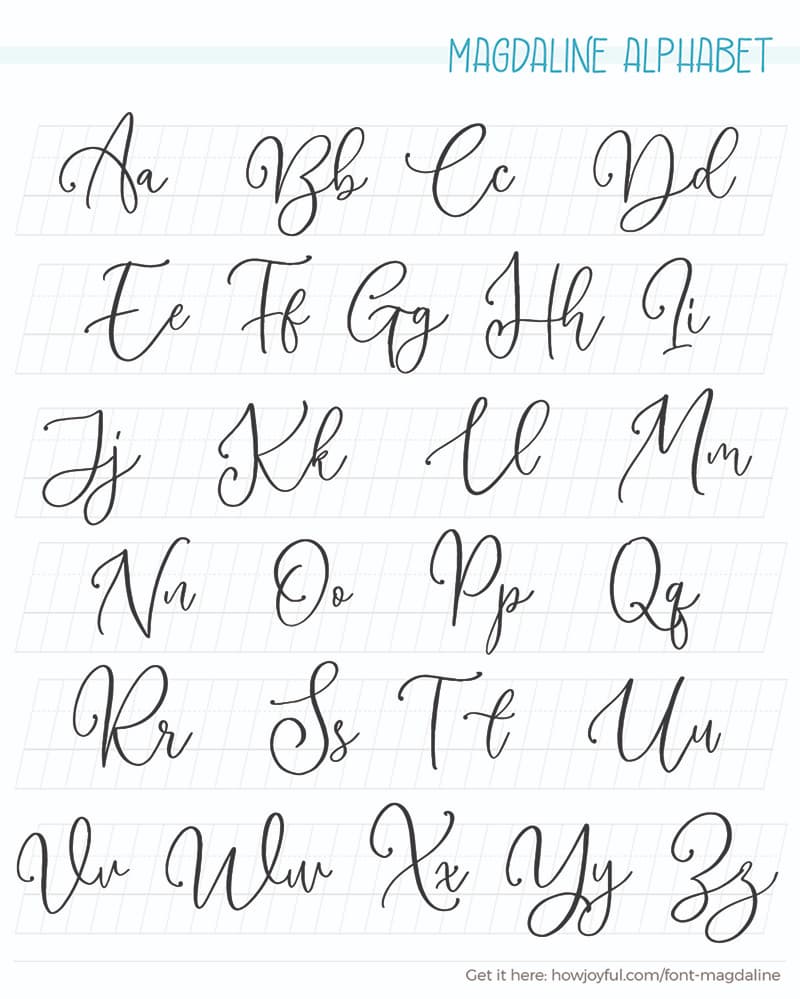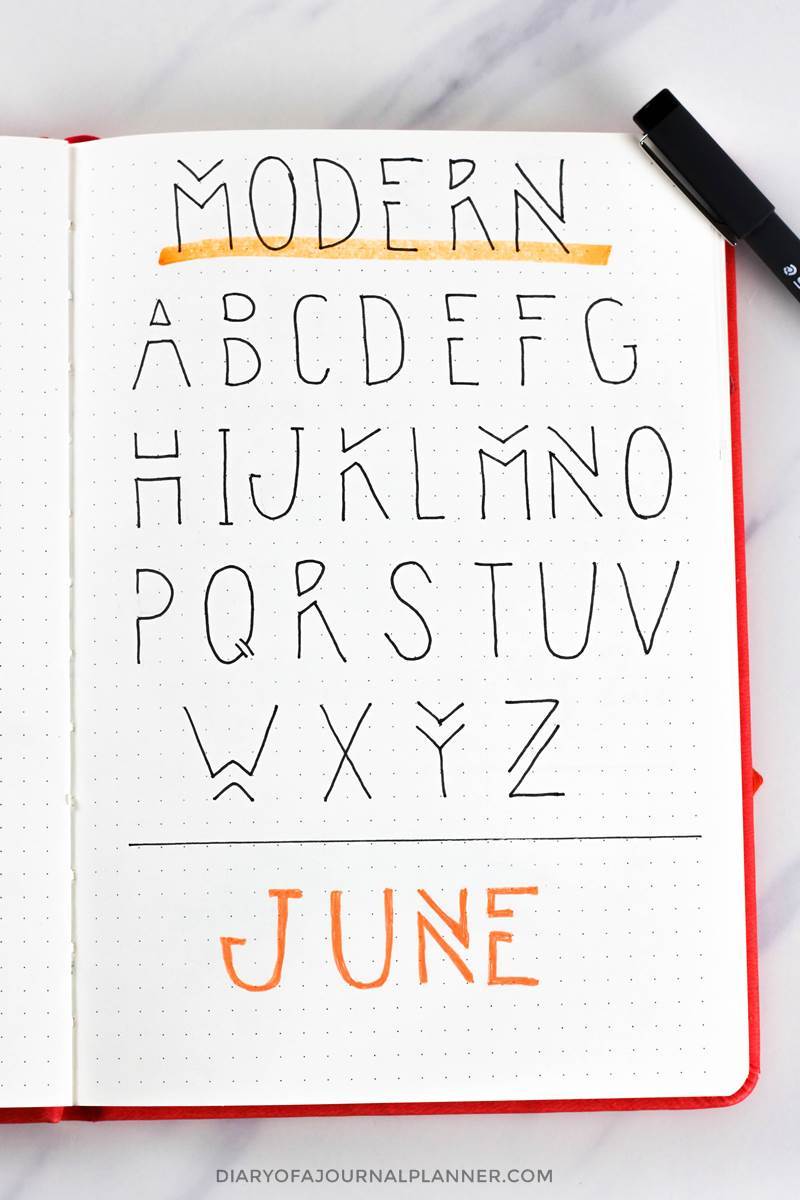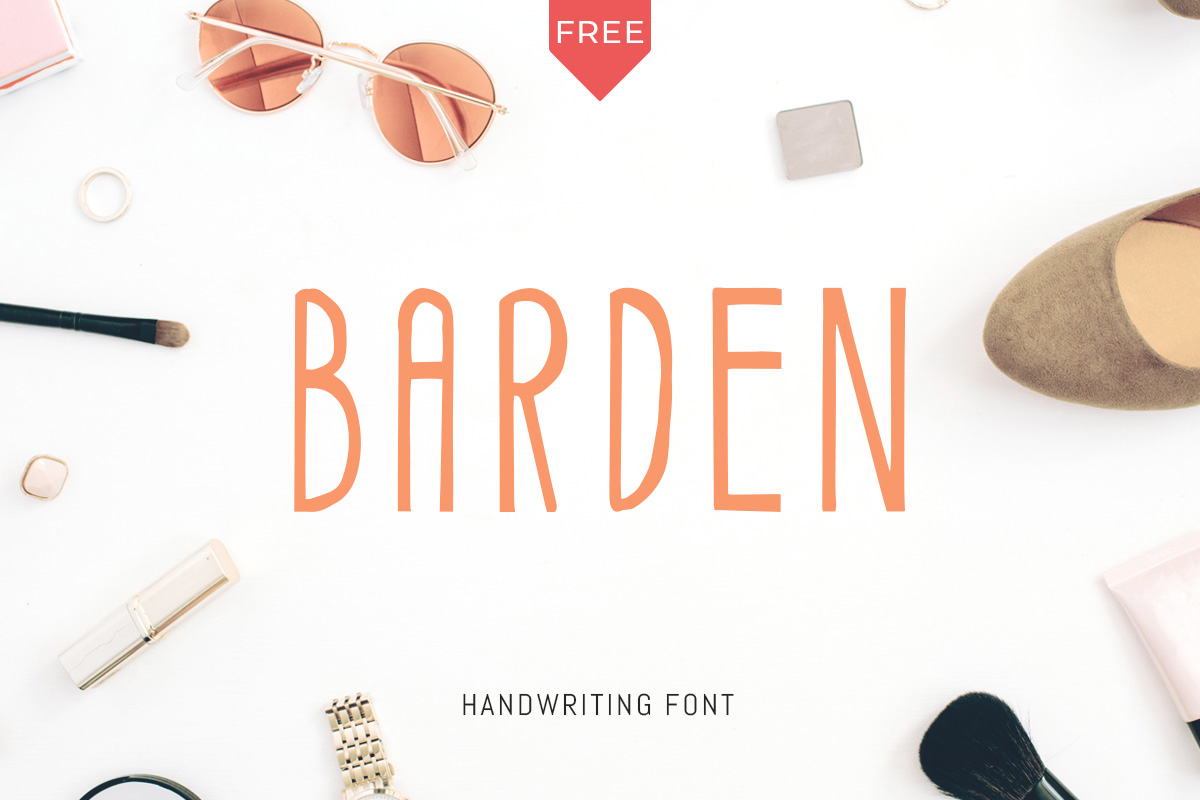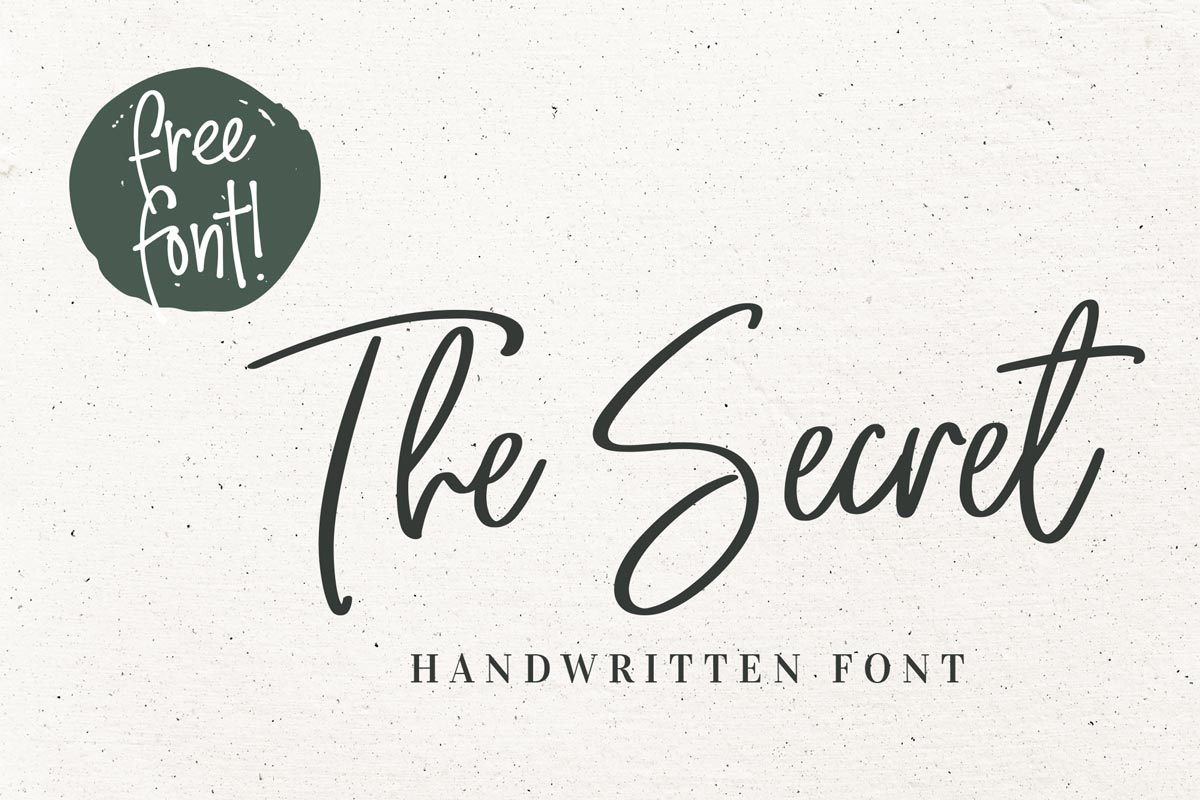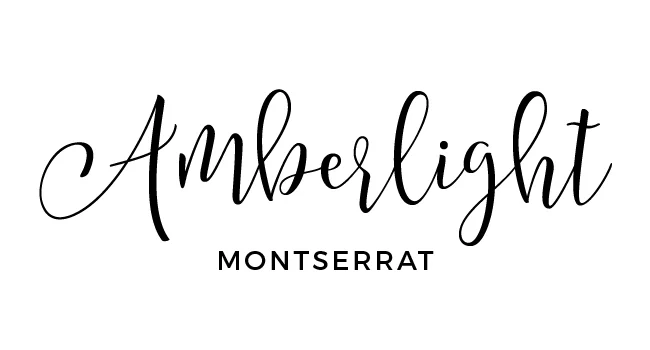
Perfect for DIY design projects wedding invitations art prints and more. This beautiful modern italics.
Amatic Sc is a dainty handwritten style font featuring slight tilts and curves.
Calligraphy fonts easy fonts to write by hand. Its a perfect example of a fancy and a multipurpose font. Faith and Glory is a set of 2 hand-painted brush fonts designed to perfectly combine with one another and allow you to create beautiful typography with a personal touch. Click to find the best 585 free fonts in the Hand Lettering Calligraphy style.
Not a lot of people know that Google Docs have a lot of fonts that look like handwriting. Backlash by Great Lakes Lettering. Handwriting Fonts in Google Docs.
Discover the limitless design possibilities with this fabulous Hardwatt Script Font. A lovely calligraphy font redesigned by Fredrick Nader and Roger S. Meet Hartley A Hand Brushed Calligraphy Font with a Realistic Brush Texture.
Its easy when you know what result you. These handwritten fonts are drawn using any kind of writing instrument like pen pencil felt marker brush etc. The font comes with upper and lowercase characters as two separate fonts punctuation numerals and supports international languages.
See more ideas about hand lettering fonts lettering. Learn to use a font like a professional designer. Nelson the scriptina pro is a beautiful font crafted to fit any design layout.
Lamar pen is a stunning calligraphy font designed by Mirabeau Buonaparte Lamar is a fascinating style with words combining in an elegant and stylish way. Ghost Font Calligraphy Font. Looking for Hand Lettering Calligraphy fonts.
In fact they have a wide range of handwriting font styles from serif to script to calligraphy. Every font is free to download. MyIllutions is a fascinating stylish and unusual font.